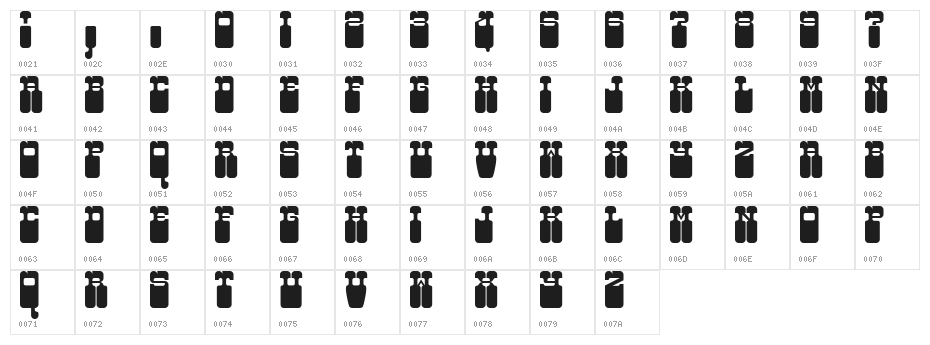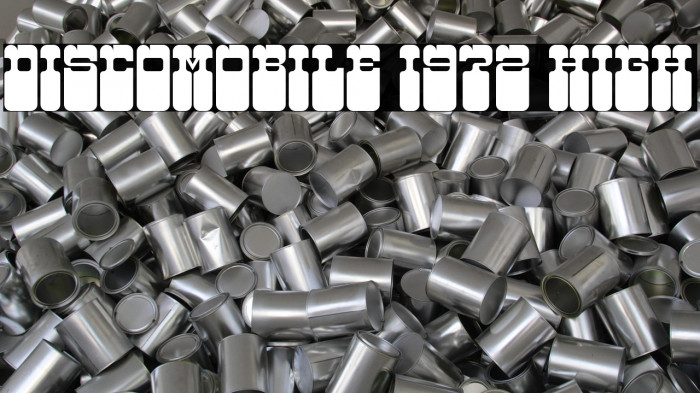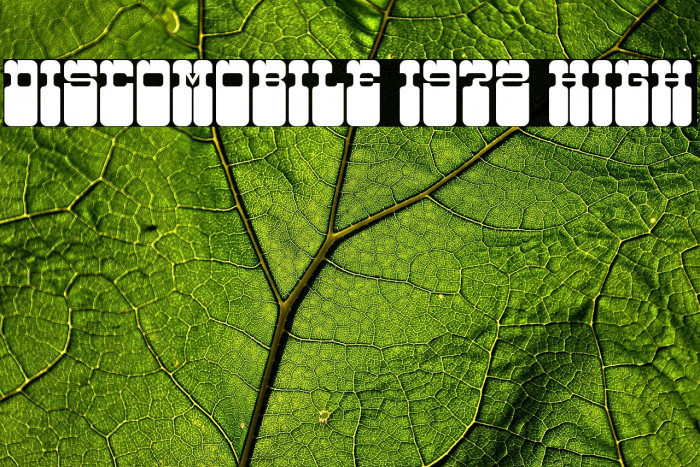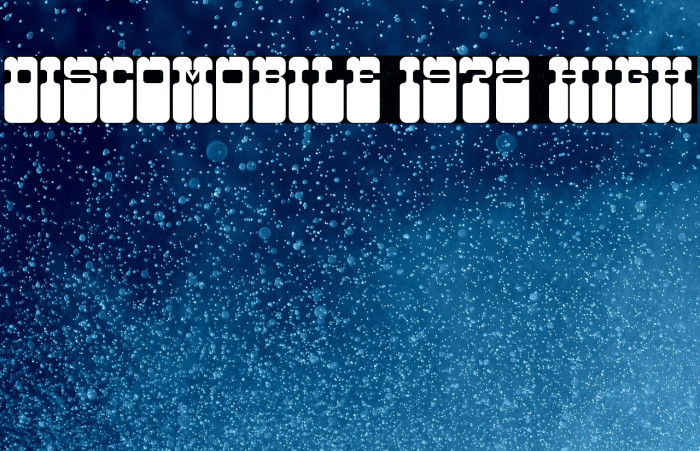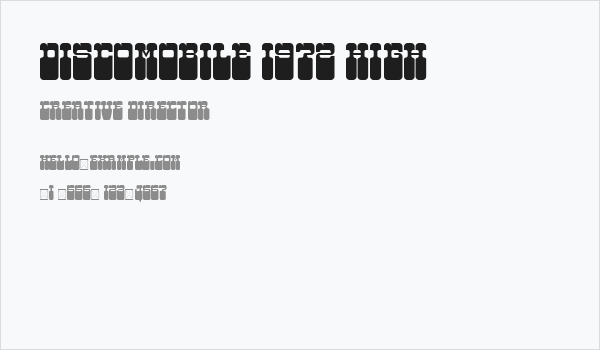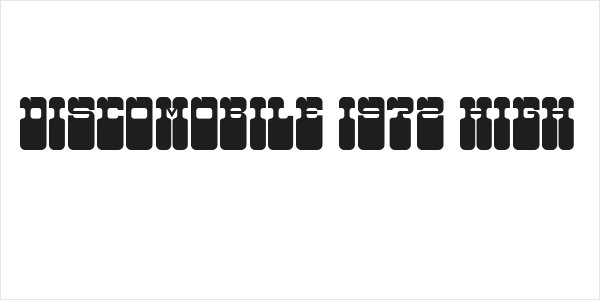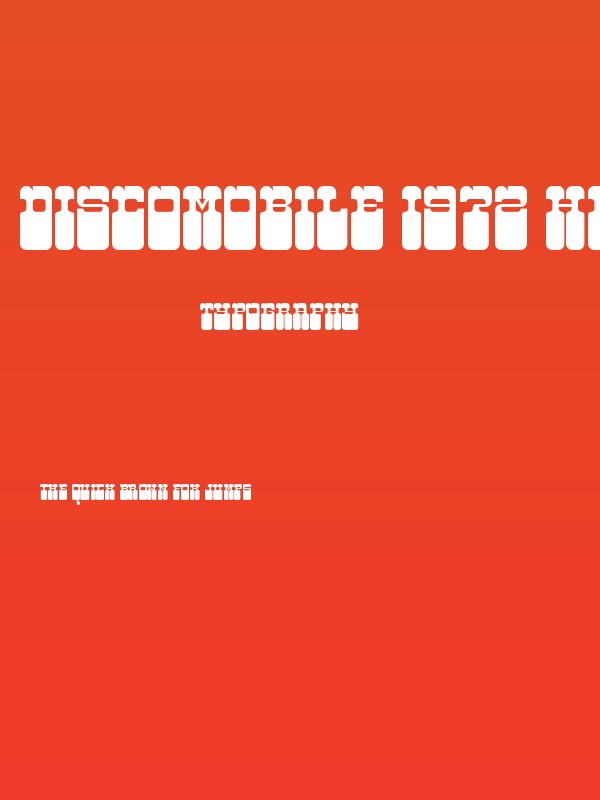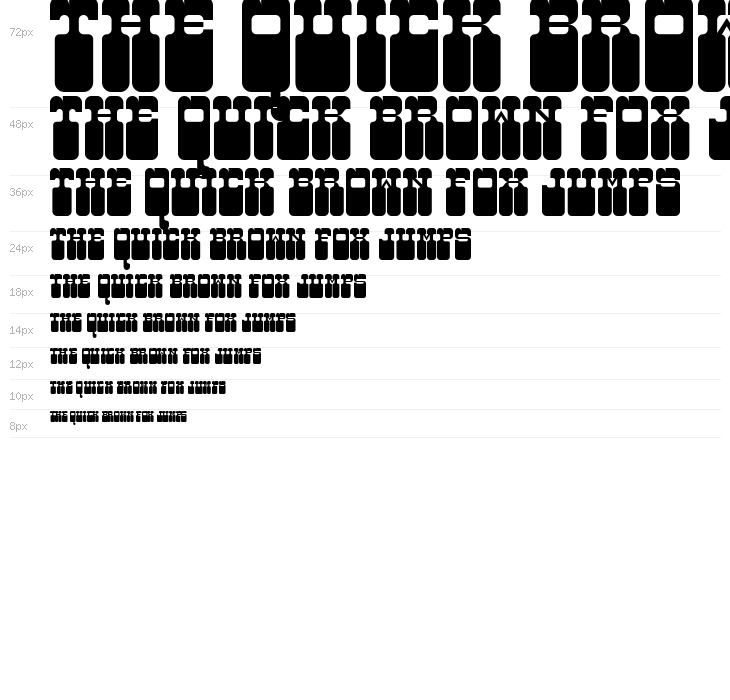
Discomobile 1972 High Font
Discomobile 1972 High Description
This font features a bold and striking design with a distinctly retro aesthetic reminiscent of the 1970s. The characters are heavily stylized with thick, blocky forms that create a strong visual impact. Each letter is uniquely crafted with rounded edges and a uniform thickness, giving the font a cohesive and harmonious look. The numbers and special characters follow the same design principles, ensuring consistency across all glyphs. The overall appearance is both playful and assertive, making it ideal for projects that require a vintage yet modern touch.
| Proposed Projects | Ideal for retro-themed posters, album covers, branding for vintage products, or any design project that seeks to capture the essence of the 1970s. |